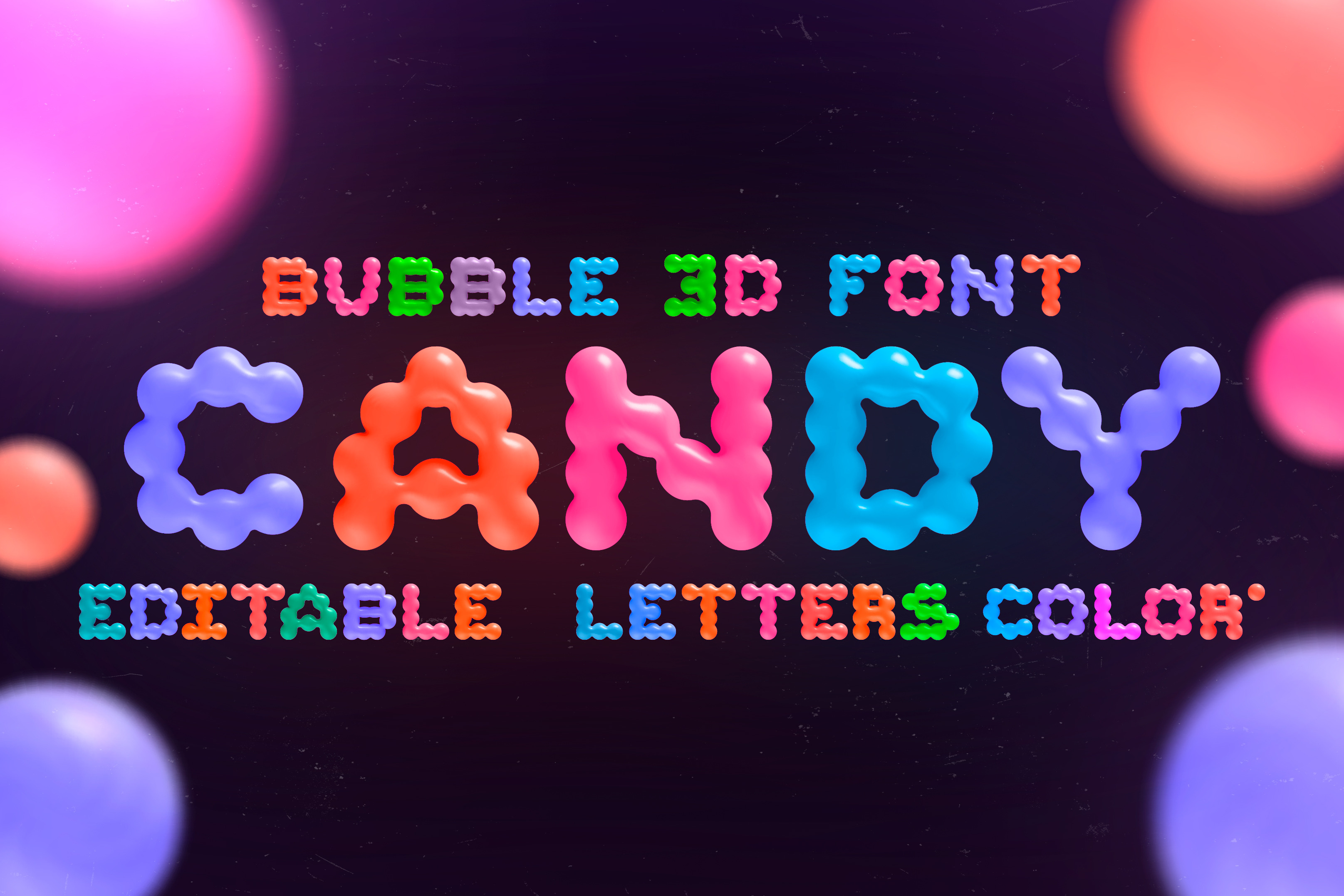
CANDY 3D BUBBLE FONT VECTOR
Candy 3D Bubble Font — Editable Vector + OTF File
Candy 3D Bubble Font is a playful, high-impact display typeface inspired by glossy inflatable shapes and Y2K aesthetics. This expanded package includes not only the full alphabet, numbers, and essential symbols, but also multiple color variations, ready-to-use assets, and fully editable vector files.
Lavender • Orange • Pink • Green • Lavender Blue • Blue • White • Black
Color Editing System
The vector version allows color customization using a transparency overlay method.
You can easily adjust the overlay color to recolor the letters in Adobe Illustrator. While not every possible shade is achievable due to the blending technique, a wide range of vibrant tones can be created.
White and Black versions are provided separately because these extreme tones cannot be recreated using the overlay system. They are included as standalone vector files for maximum flexibility.
The soft inflated forms combined with glossy lighting make this font ideal for playful, experimental, and eye-catching compositions.